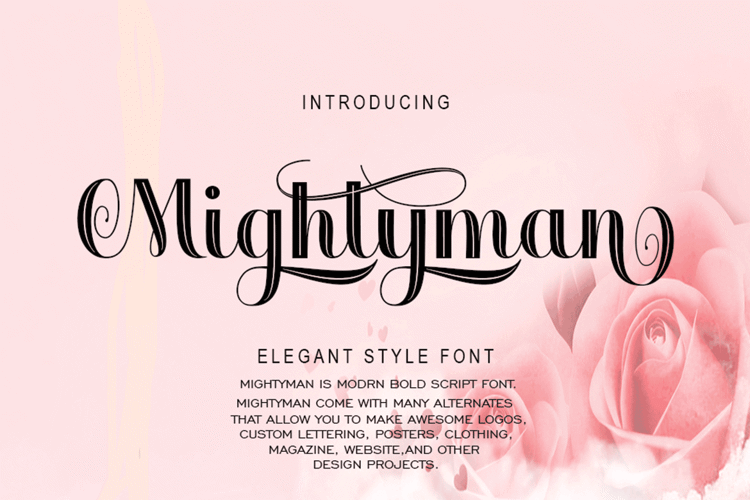
Mightyman Font
About Mightyman Font
INTRODUCE...! Mightyman
Mightyman is a type of font with personality. You can use it as logos, badges, packaging, titles, posters, t-shirts / clothes, greeting cards, and wedding invitations. Flowing characters are ideal for creating interesting messages, mixing and matching Montana with many alternative characters that fit your project.
Alternative characters in this font are divided into several OpenType features such as Stylistic Alternate, Stylistic Sets, and Ligature. The OpenType feature can be accessed using OpenType programs such as Adobe Illustrator, Adobe Photoshop, and Adobe InDesign.